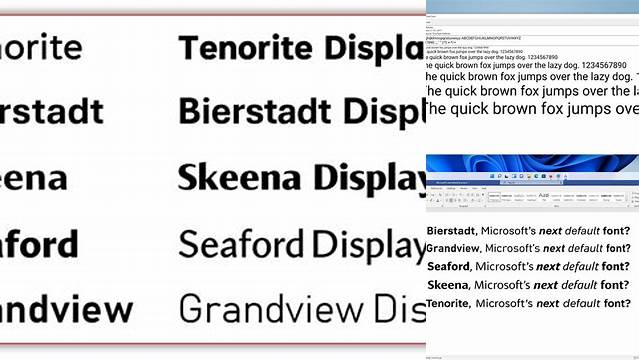
Download New Microsoft Fonts: A Complete Guide
Are you looking to download new Microsoft fonts? Well, you've come to the right place! In this article, we'll dive deep into everything you need to know about getting your hands on fresh, stylish fonts for your projects. Whether you're a graphic designer, a student, or just someone who loves playing around with typography, having access to a diverse range of fonts can really elevate your work. We'll cover where to find these fonts, how to install them, and even some tips on how to use them effectively. So, let's get started and jazz up your digital creations with some awesome new fonts!
Why New Fonts Matter
Fonts are more than just letters; they're a crucial part of visual communication. The right font can convey the tone, style, and personality of your message. Think about it: a playful script font might be perfect for a children's book, but it would look totally out of place in a legal document. Similarly, a bold, modern sans-serif font can make a statement in a marketing campaign, while a classic serif font lends an air of sophistication to a formal invitation. By expanding your font library with new Microsoft fonts, you're essentially adding more tools to your creative toolkit. This allows you to better express your ideas and connect with your audience on a deeper level. Plus, let's be honest, who doesn't love the feeling of discovering a new font that perfectly captures the vibe you're going for? It's like finding the perfect ingredient for a recipe – suddenly, everything comes together just right. Having a variety of fonts available ensures that you can always find the right font for the right project, helping you to create visually stunning and effective designs.
Where to Find New Microsoft Fonts
Finding new Microsoft fonts can be an exciting adventure! Microsoft itself offers a selection of fonts that come pre-installed with Windows and Office. These fonts are a great starting point, but if you're looking for something more unique, you might need to explore other avenues. The Microsoft Store is a fantastic resource, offering both free and paid fonts that you can easily download and install. Websites like MyFonts, FontShop, and Adobe Fonts are also treasure troves of high-quality fonts, with options ranging from classic designs to cutting-edge styles. When browsing these sites, be sure to check the licensing agreements to ensure that you're using the fonts legally. Some fonts are free for personal use but require a commercial license for business projects. Keep an eye out for font bundles and special offers, as these can be a great way to expand your font collection without breaking the bank. And don't forget about free font websites like Google Fonts and Font Squirrel, which offer a wide range of open-source fonts that are free to use for both personal and commercial projects. With so many options available, you're sure to find the perfect fonts to bring your creative visions to life. Just remember to always download fonts from reputable sources to avoid any potential security risks.
Tips for Using New Fonts Effectively
So you've got your new Microsoft fonts all installed and ready to go, but how do you actually use them effectively? Choosing the right font is just the first step; you also need to consider how it works with other design elements and how it impacts the overall message. Start by thinking about the tone and style you want to convey. Is your project formal and professional, or casual and playful? The font you choose should reflect that. For example, a classic serif font like Times New Roman might be perfect for a business report, while a handwritten script font might be better suited for a birthday invitation. Pay attention to the readability of the font. A fancy, decorative font might look cool, but if it's difficult to read, it's not going to be effective. Choose fonts that are clear and legible, especially for body text. Consider the font size and line spacing to ensure that the text is easy on the eyes. Experiment with different font combinations. Pairing a bold headline font with a simpler body text font can create a visually appealing contrast. However, be careful not to use too many different fonts in one project, as this can make the design look cluttered and confusing. Use fonts consistently throughout your project to maintain a cohesive look. Create a style guide that outlines which fonts to use for headings, body text, and other elements. And finally, don't be afraid to experiment and have fun! Try out different fonts and see what works best for your project. The more you experiment, the better you'll become at choosing and using fonts effectively. Remember, the goal is to create a design that is both visually appealing and communicates your message clearly. With a little practice, you'll be a font master in no time!
So, there you have it, guys! Everything you need to know about downloading new Microsoft fonts and using them effectively. From finding the perfect fonts to installing them and troubleshooting any issues, we've covered it all. Remember, fonts are a powerful tool for visual communication, so take the time to choose the right ones for your projects. With a little practice and experimentation, you'll be able to create stunning designs that capture attention and convey your message clearly. So go ahead, explore the world of fonts and discover the endless possibilities that await you. Happy designing!